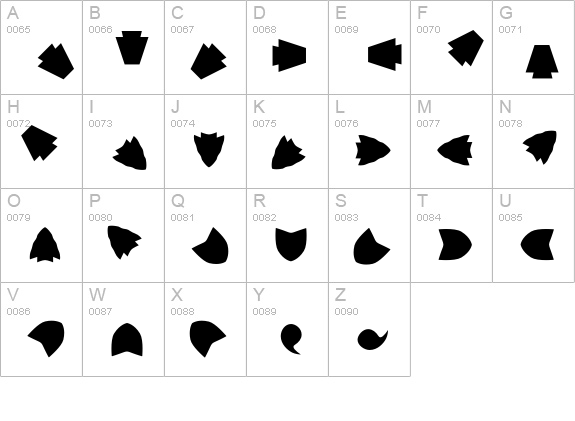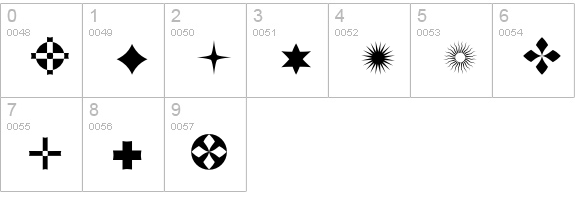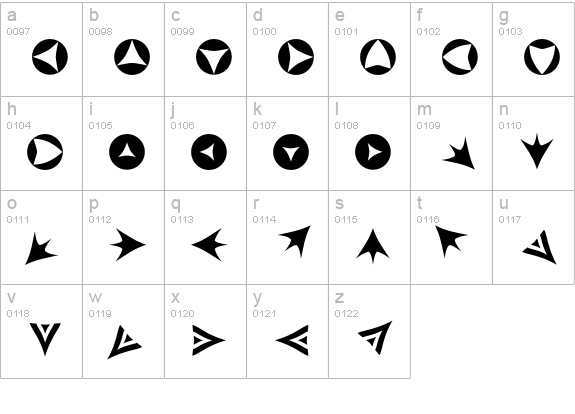
AltemusBordersOne Font Details
AltemusBordersOne is a charming and versatile display font that exudes elegance and sophistication. With its intricate borders and decorative elements, this font is perfect for adding a touch of flair to your designs. Whether you're creating invitations, posters, or branding materials, AltemusBordersOne is sure to make a statement. The best part? AltemusBordersOne is available for free download at FontsMarket.com. This means you can easily access this stunning font to enhance your projects without any cost. Don't miss out on this opportunity to add a touch of creativity to your designs with AltemusBordersOne. Download it today and let your imagination run wild!